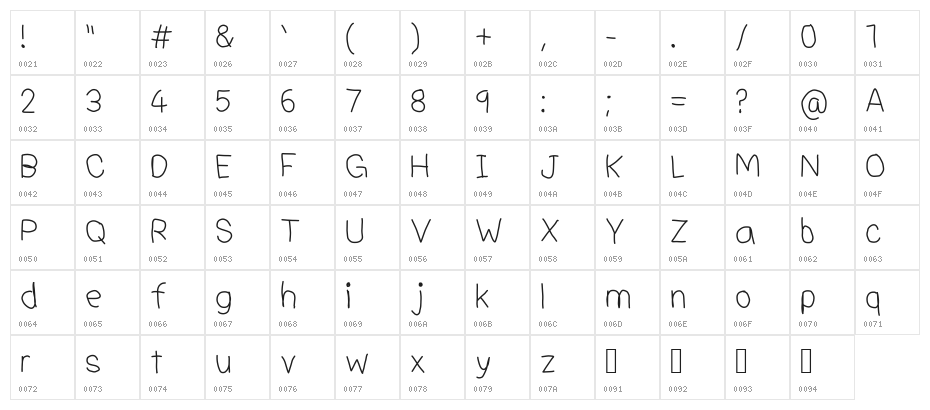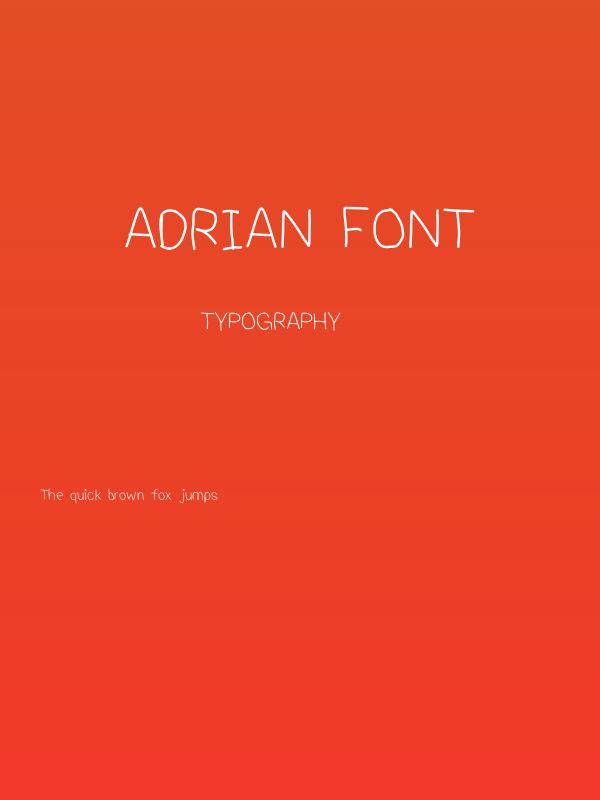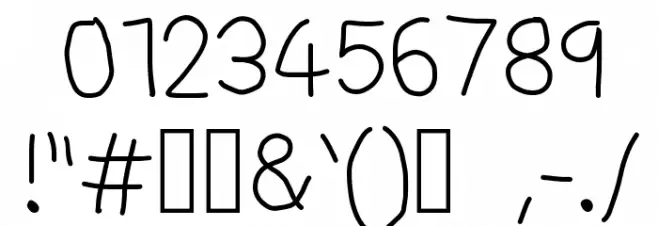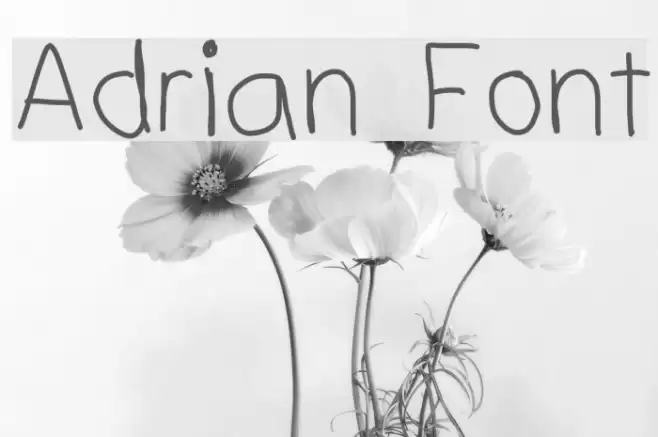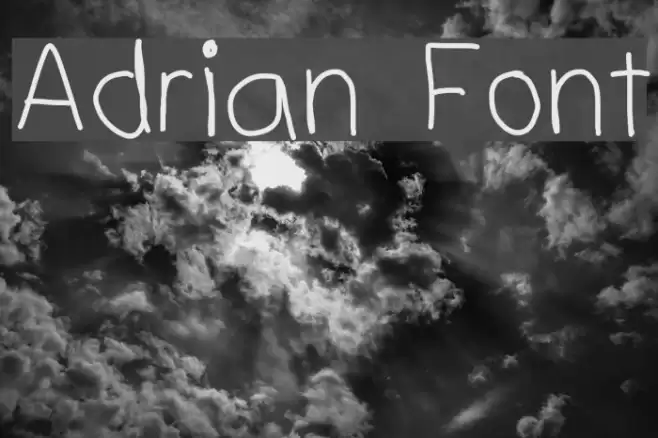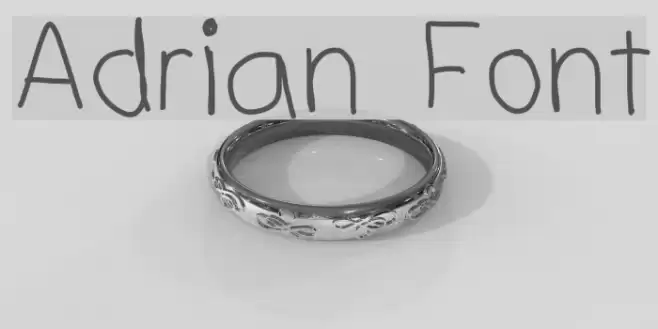
Adrian Font Font
Adrian Font Description
This font features a playful and informal handwritten style, characterized by its irregular strokes and casual appearance. The letters have a slightly uneven baseline, giving them a dynamic and lively feel. The characters are rounded with a consistent stroke width, which adds to the approachable and friendly nature of the font. It includes a full set of uppercase and lowercase letters, numerals, and a variety of special characters. The overall design is simple yet expressive, making it suitable for projects that require a personal touch.
| Use Case | Headlines, Informal text, Personal projects |
| Proposed Projects | Ideal for greeting cards, children's books, personal blogs, and casual branding projects. |